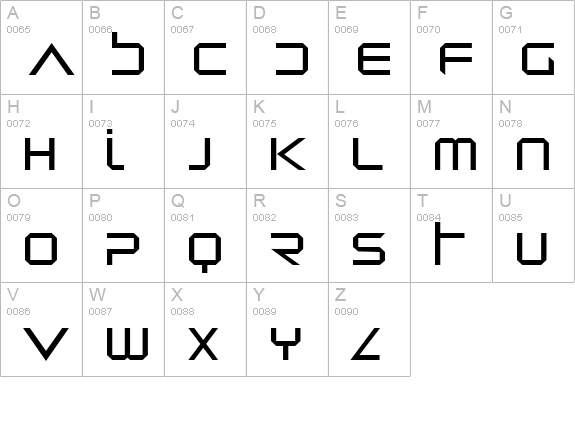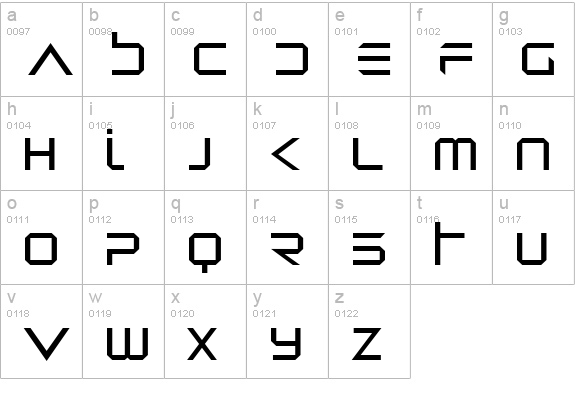
Dredwerkz Font Details
Introducing Dredwerkz font - a versatile and modern typeface that exudes creativity and style. With its unique blend of sharp angles and smooth curves, Dredwerkz is perfect for a variety of design projects, from logos to posters to web graphics. This font is available for free download at FontsMarket.com, making it easily accessible for designers and creatives looking to add a touch of sophistication to their work. Dredwerkz offers a wide range of characters and ligatures, allowing for endless possibilities in customization and design. Whether you're working on a branding project or creating eye-catching social media graphics, Dredwerkz is sure to make a bold statement. Download this dynamic font today and elevate your designs to the next level.